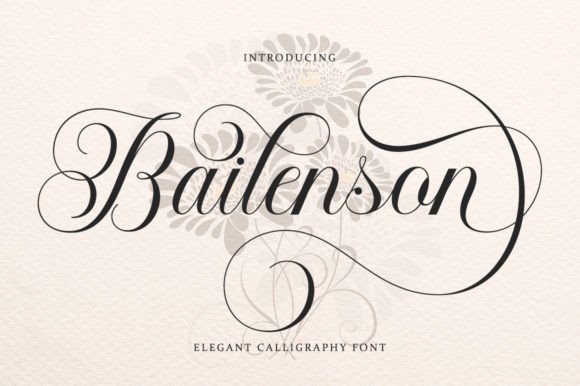
Looking for the best fonts to use for branding? Look no further than Bailenson Font! This elegant and timeless script font was created by the talented Pista Mova and inspired by Italian women's handwriting and ancient manuscripts.
Bailenson Font has a classic style with an added touch of sophistication that will elevate any design project. Whether you're creating wedding favors, book covers, greeting cards, logos, branding, business cards, or certificates, this font will bring a level of luxury and formality to your work.
Crafted with careful attention to detail, Bailenson Font works together in harmony to create a seamless look and feel. Each letter is carefully designed to ensure a cohesive and polished finish. With its unique blend of classic and modern style, Bailenson Font is the perfect choice for any design project that requires an elegant touch.
With Bailenson Font, you can evoke a range of emotions and feelings, from a sense of tradition and history to a feeling of luxury and sophistication. Whether you're designing for a high-end brand or a personal project, Bailenson Font will add a touch of elegance that will set your work apart.